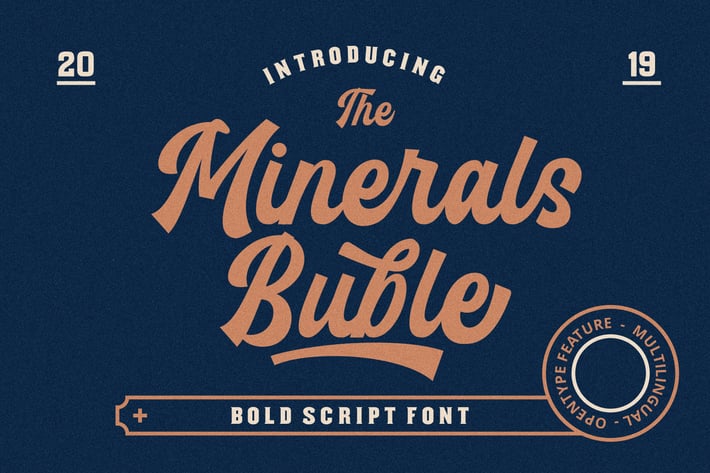
Minerals Buble Bold Script Font
Minerals Buble Bold Script font, is our new item that suitable for your team logo, or community logo.
Great for
Logo, Sticker, Jersey, Invitation Card, Brochure, etc.